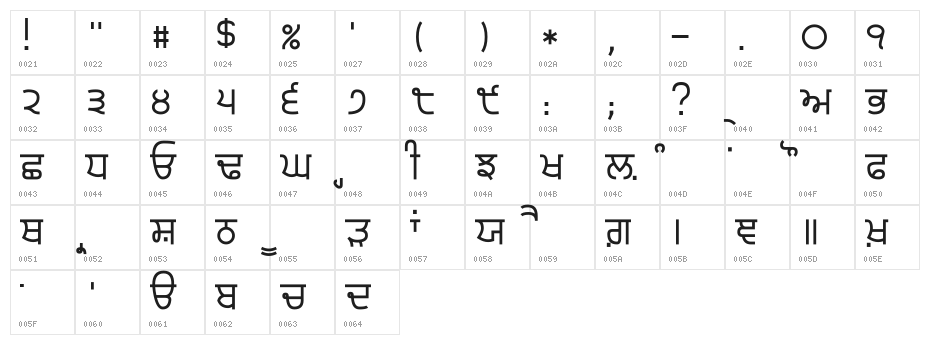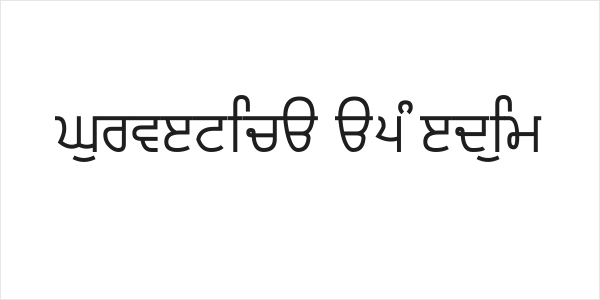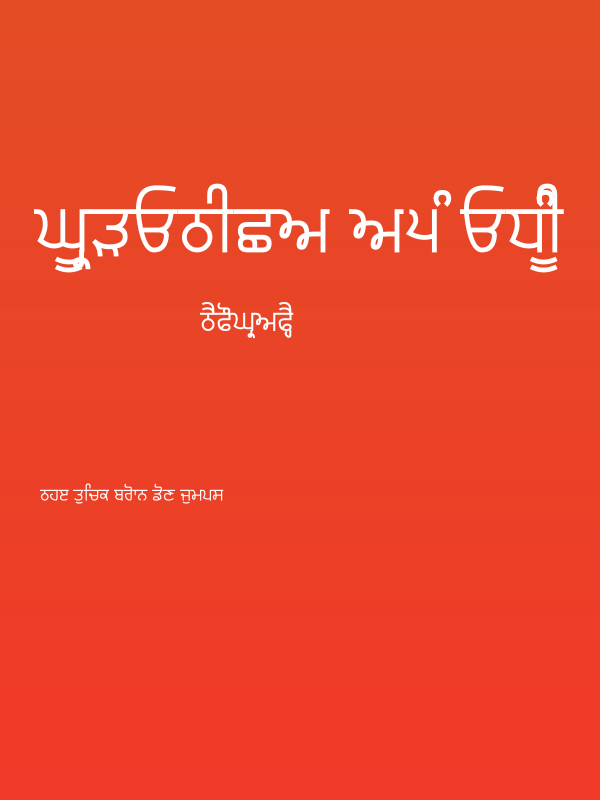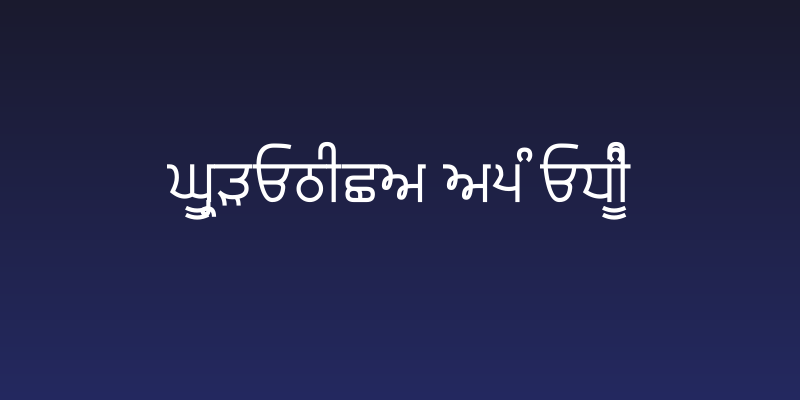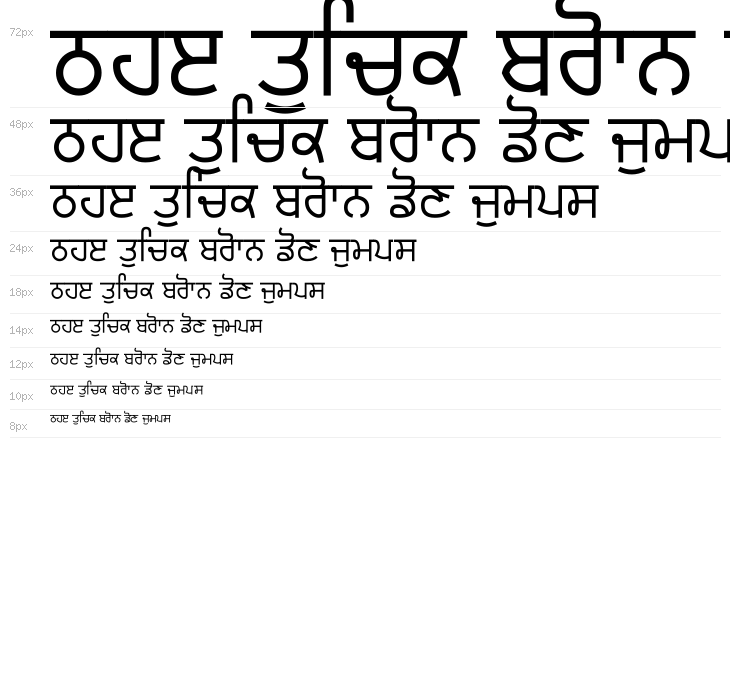
Gurvetica a5 Medium Font
Gurvetica a5 Medium Description
This font features a unique blend of traditional and modern elements, characterized by its clean, geometric shapes and balanced proportions. The characters are crafted with a medium weight, providing a sturdy and legible appearance. The font exhibits a high level of clarity, making it suitable for various applications. Its design incorporates a subtle contrast in stroke thickness, enhancing readability while maintaining a sleek and contemporary look. The spacing between characters is normal, ensuring a harmonious flow of text. This font is versatile, offering a professional yet approachable aesthetic that can adapt to different design needs.
| Proposed Projects | Ideal for branding, signage, editorial design, and digital interfaces. |